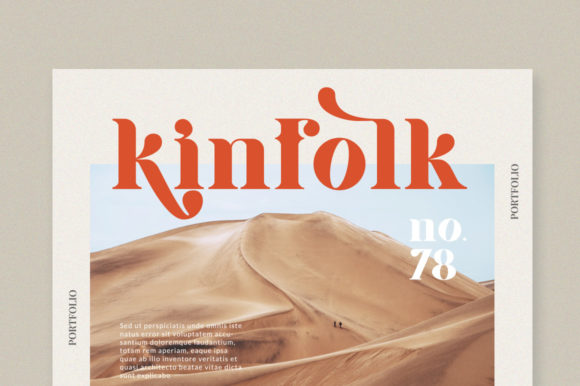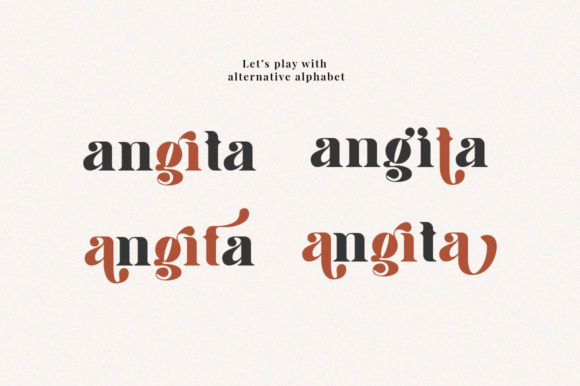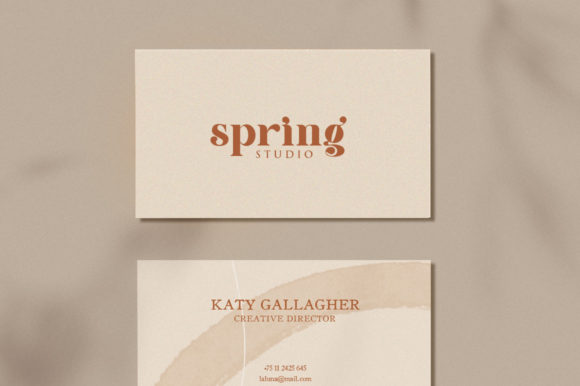
Introduction to Halo Jabgiki Font
Have you ever stared at a blank page, waiting for inspiration to strike? That’s exactly where I was when I discovered the Halo Jabgiki Font. As a designer, I’m always on the lookout for high-quality fonts that can elevate my creative projects and make them truly stand out. And let me tell you, this font did just that.
With its trendy and chic serif design, the Halo Jabgiki Font is a game-changer for any design resource. Its PUA encoding makes it incredibly easy to access all of the glyphs and swashes, allowing you to add a touch of sophistication to your designs with ease. Whether you’re working on a project with a transparent background or creating a custom logo, this font is sure to impress.
Key Features of Halo Jabgiki Font
- High-quality, vector-based font design for a crisp and clear appearance, ideal for creative projects.
- Unique characteristic: the font’s intricate details and unique style make it perfect for adding a touch of elegance and sophistication to any creative project.
Honest Review: Halo Jabgiki Font
I recently stumbled upon the Halo Jabgiki Font and I must say it’s been a game-changer for my creative projects. ✨ The high-quality design and transparent background make it a versatile resource that can be used in a variety of contexts.
- Wide range of applications: from logos to typography, this font is incredibly versatile.
- Professional look: the font exudes a level of sophistication that’s hard to find in free design resources.
- Not suitable for all designs: the font’s style may not be the best fit for every project, so be sure to evaluate its suitability before using it.
Overall, I’m thoroughly impressed with the Halo Jabgiki Font. It’s a high-quality design resource that’s perfect for creative projects, and its free download makes it an absolute steal. If you’re looking for a reliable font to add some depth to your designs, I highly recommend giving it a try.
Halo Jabgiki Font
The Halo Jabgiki Font is a high-quality design resource ideal for creative projects. It features a transparent background, making it perfect for layering and customization.
To get the most out of the Halo Jabgiki Font, use it for projects that require a high level of customization and layering. This font is ideal for logos, branding, and creative designs.
The Halo Jabgiki Font is commonly used for:
- Branding
- Creative graphics